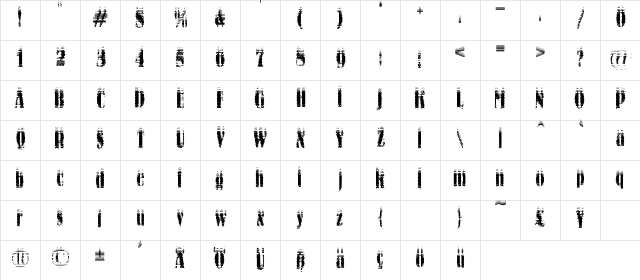
Ko City Regular
Complete Ko City Regular glyph index. Displaying only characters natively supported by Ko City Regular font.
Design Context for Ko City
Ko City is a composed and adaptable typeface that performs quietly and consistently across a wide range of design contexts.